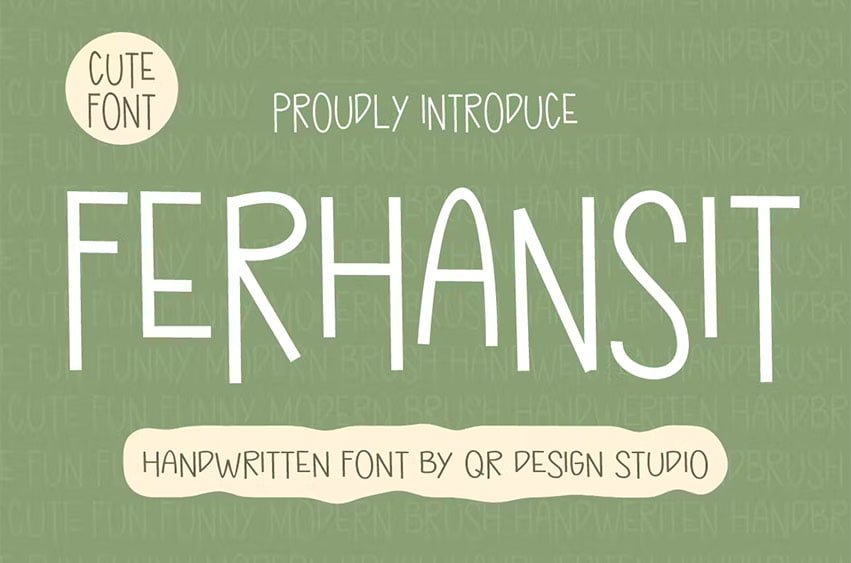
Ferhansit Font Handwritten Font is a bold and authentic display font. The font is suitable for any branding project like logo, poster, food, wedding, greeting card, and many more. Outstanding in a wide range of contexts.